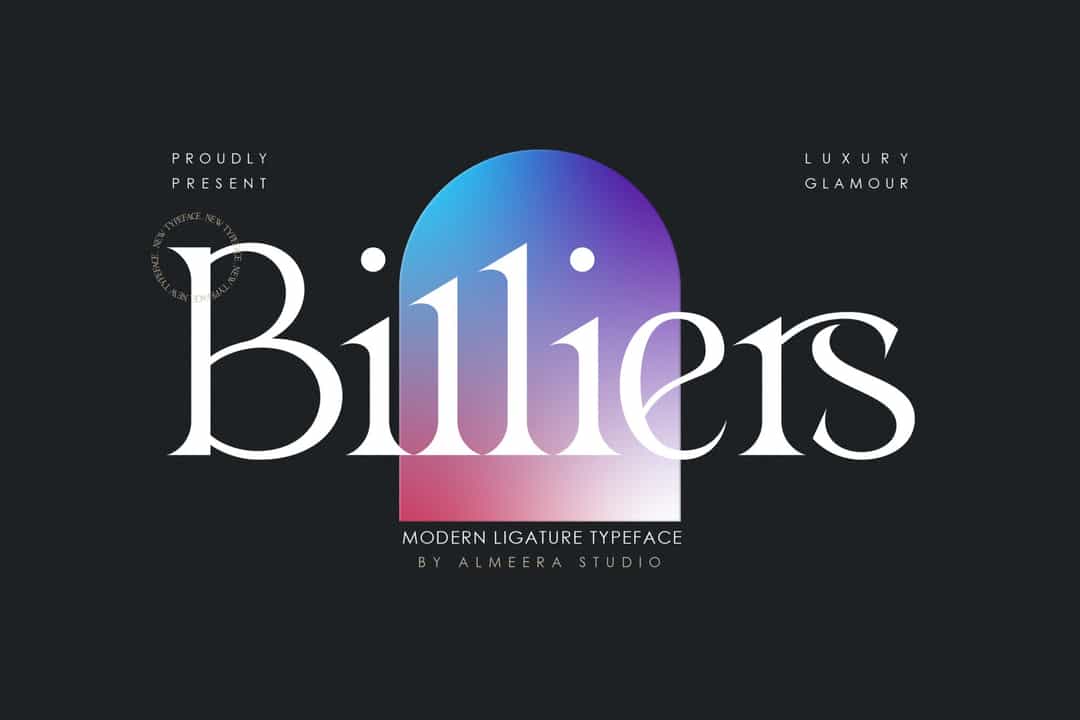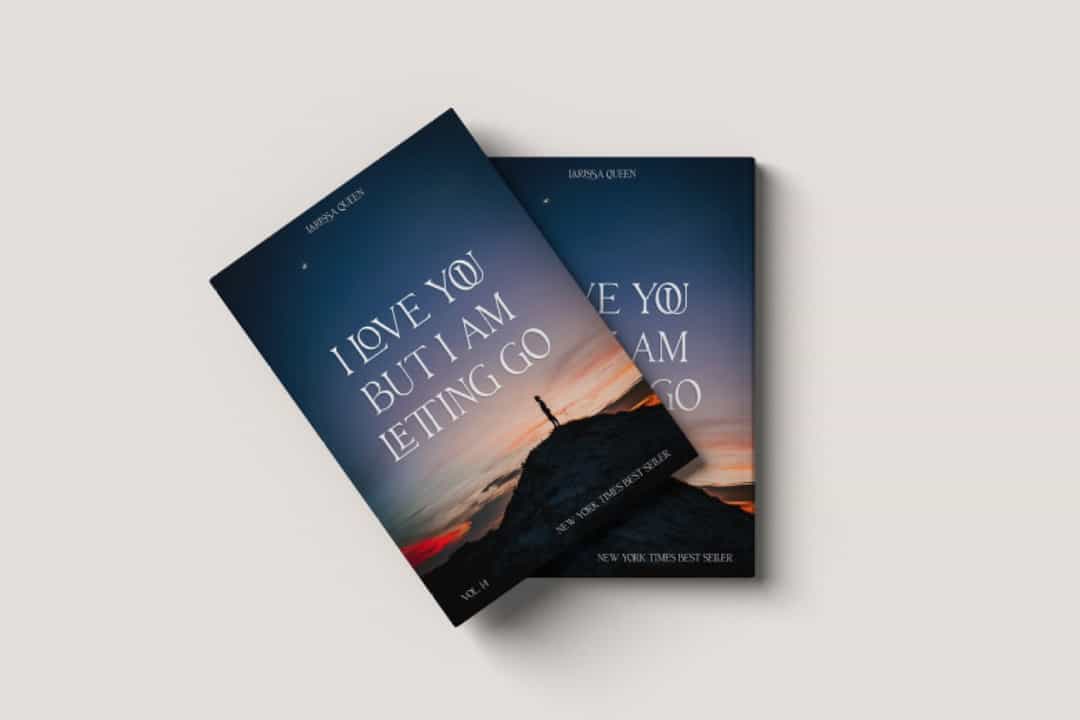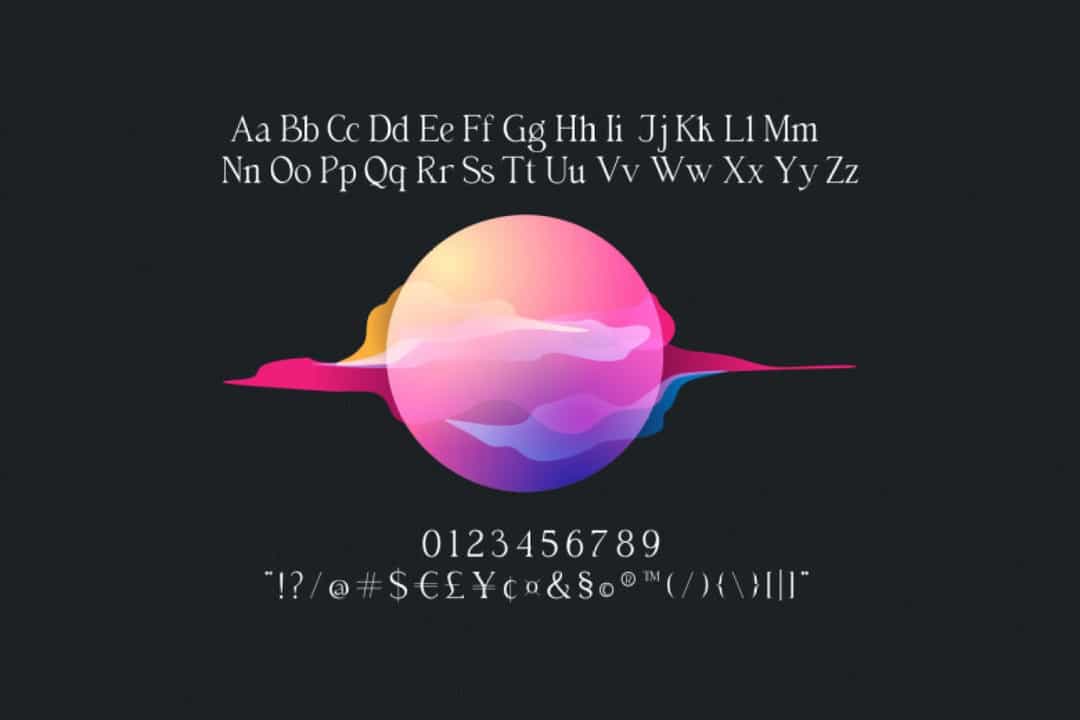
Billiers is a premium and elegant serif font suitable for logos, magazines social media posts and publications of any type – perfect for logos magazines social media posts and more publications! Already matched and ready for use into your next project! For those seeking elegant modernity chic sophistication this font was created to fulfill those requirements!